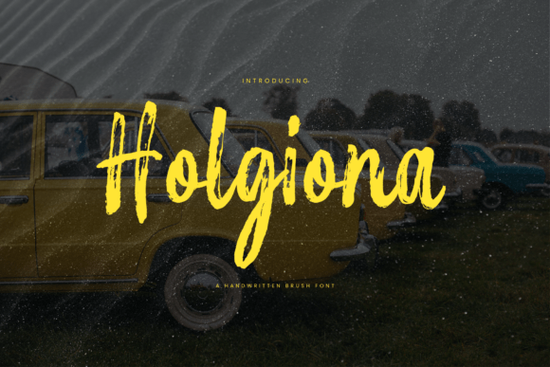
If you are working on a brand identity or custom merchandise, finding the right typography can make or break the visual message. You want something that stands out but doesn't feel chaotic. Holgiona Font is designed to fill that gap with its handwritten display style. It brings a modern, handcrafted vibe without sacrificing legibility.
What kind of design work does this script support?
Many creators struggle to find typefaces that look personal yet professional. Regular serif or sans-serif fonts often feel too corporate for lifestyle brands, while overly decorative script fonts can become unreadable quickly. This font strikes a balance between bold confidence and a casual touch. Because of its strong strokes, it works well in larger sizes for headlines, posters, and packaging. It creates a feeling of approachability that customers respond to on social media feeds.
Sometimes, you might need something softer depending on the project tone. If you are building a portfolio that leans more toward elegance rather than raw energy, browsing collections of simple signature font script fonts might offer that lighter alternative. However, Holgiona remains ideal when you need a statement piece that carries weight visually without appearing messy.
Which products sell best with this style?
Print-on-demand sellers know that specific aesthetic trends drive sales cycles. This particular typeface shines on physical goods like coffee mugs, tote bags, and apparel tees. Its clean edges translate well onto different textures, whether it is vinyl heat transfer or direct-to-garment printing. For event-based marketing, it provides a friendly invitation look that feels exclusive yet welcoming.
For instance, a local bakery could use this for menu boards, while a fitness coach might use it for workout challenge posters. If you specialize in seasonal events or sports teams, exploring options like Happy Gameday font script fonts complements this style perfectly for sports graphics. Keeping consistency across your marketing materials helps build recognition, so having a cohesive set of matching typefaces is a smart investment.
Are there similar fonts for specific themes?
While Holgiona is versatile, niche projects sometimes require specialized lettering. Educational materials, for example, benefit from handwriting styles that feel encouraging rather than strict. If you are designing lesson plans or teacher resources, looking at teacher beautiful font script fonts can provide that extra layer of personality suitable for young students. Similarly, for DIY enthusiasts selling craft kits, you might want a warmer aesthetic. Styles resembling cozy textures, such as KnitHeart font script fonts, pair well with crafting communities.